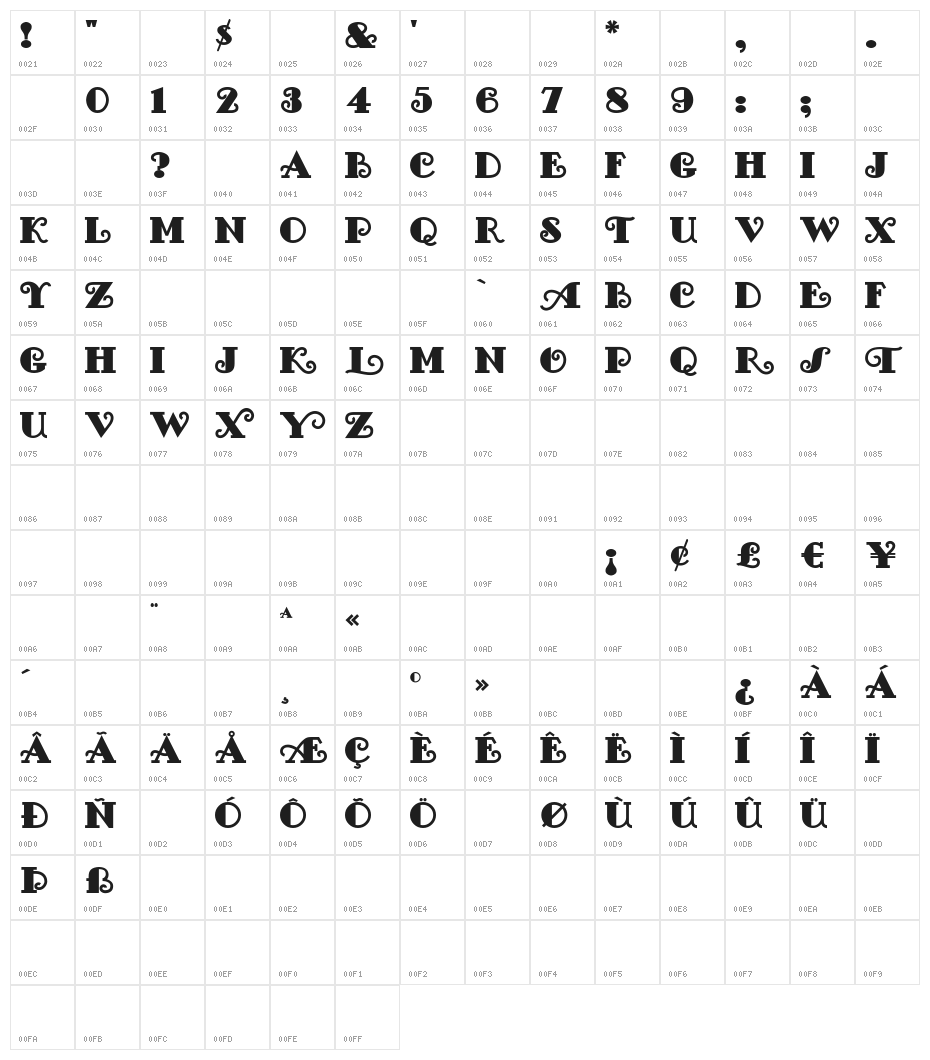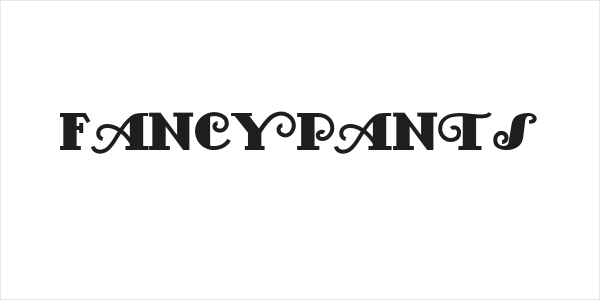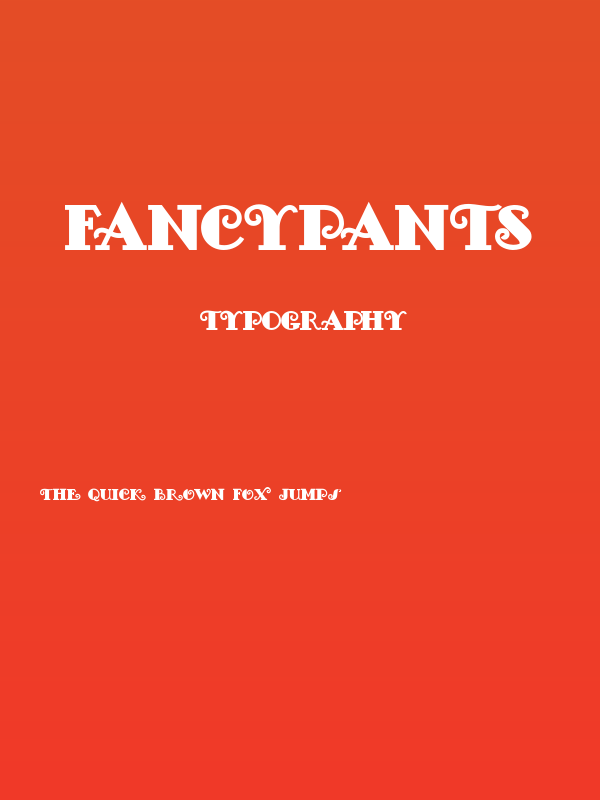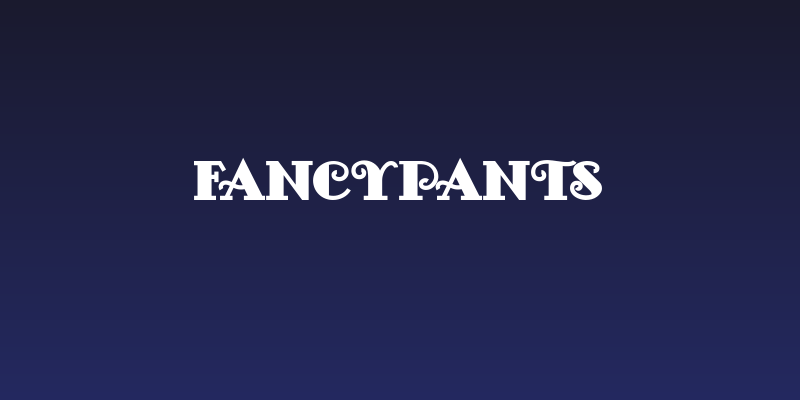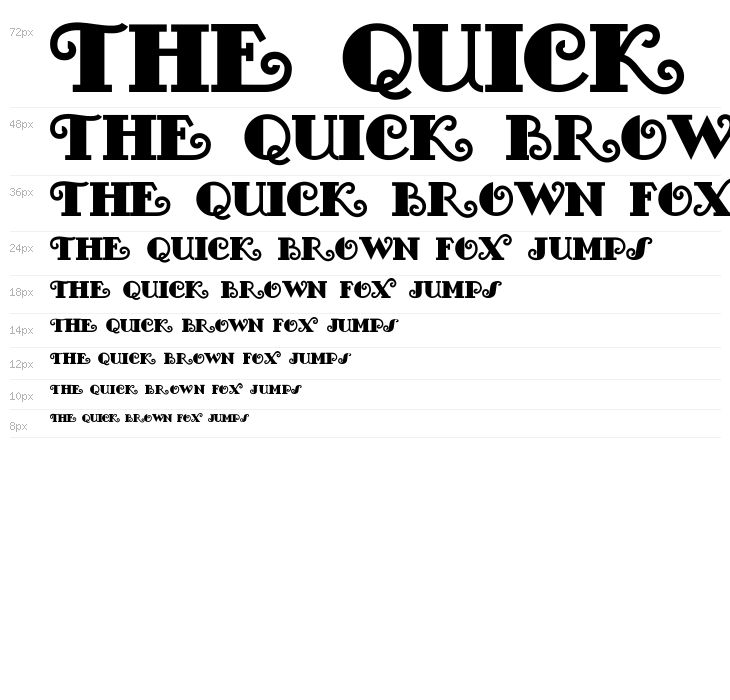
FancyPants Font
Fonts by Nick Curtis - www.nicksfonts.com
| Caso d'uso | Headlines, Logos, Invitations |
| Progetti proposti | Ideal for invitations, posters, branding, and any project requiring a whimsical and elegant touch. |
| Autore | Fonts by Nick Curtis - www.nicksfonts.com |